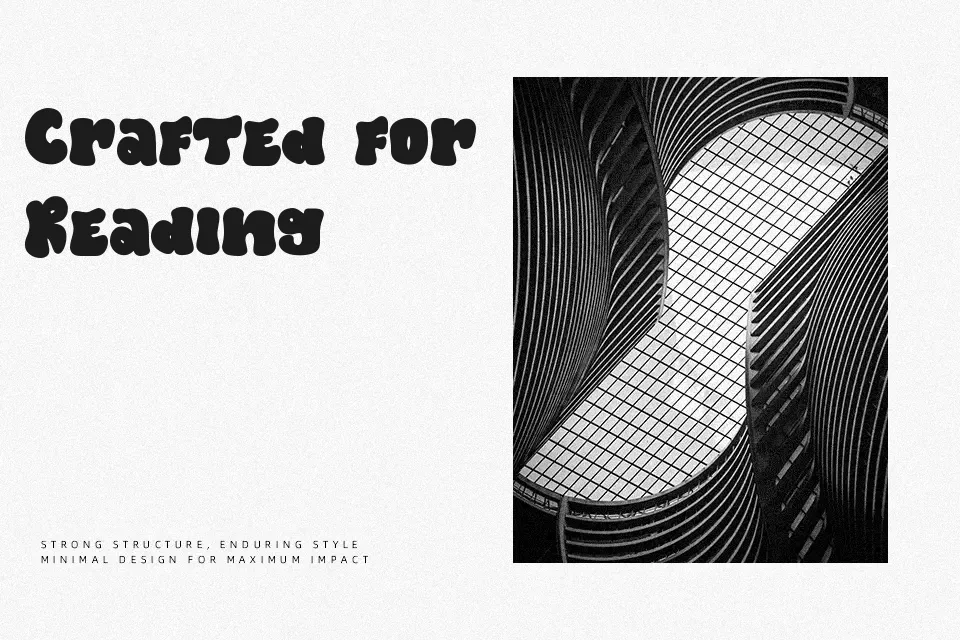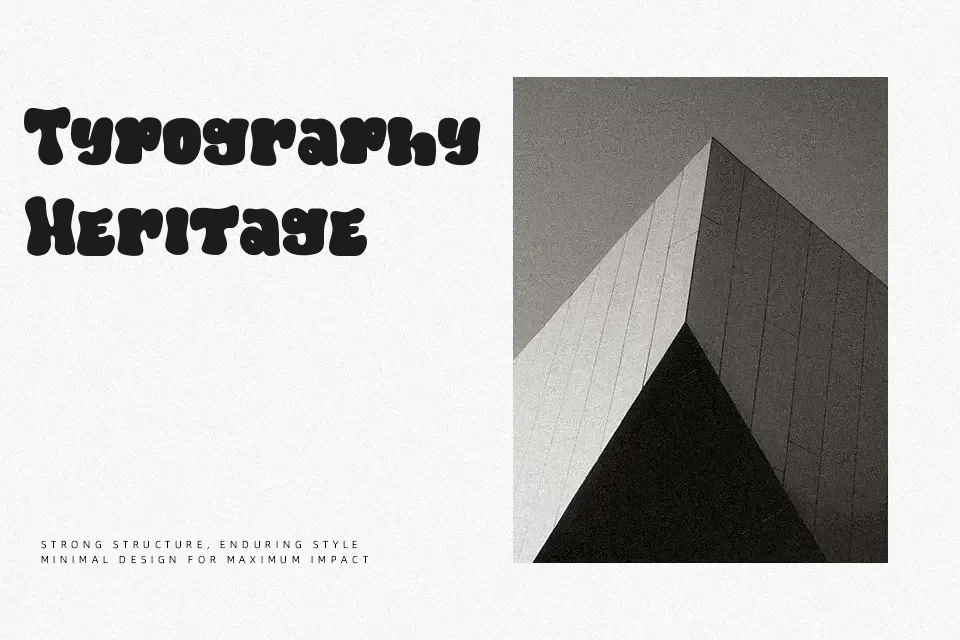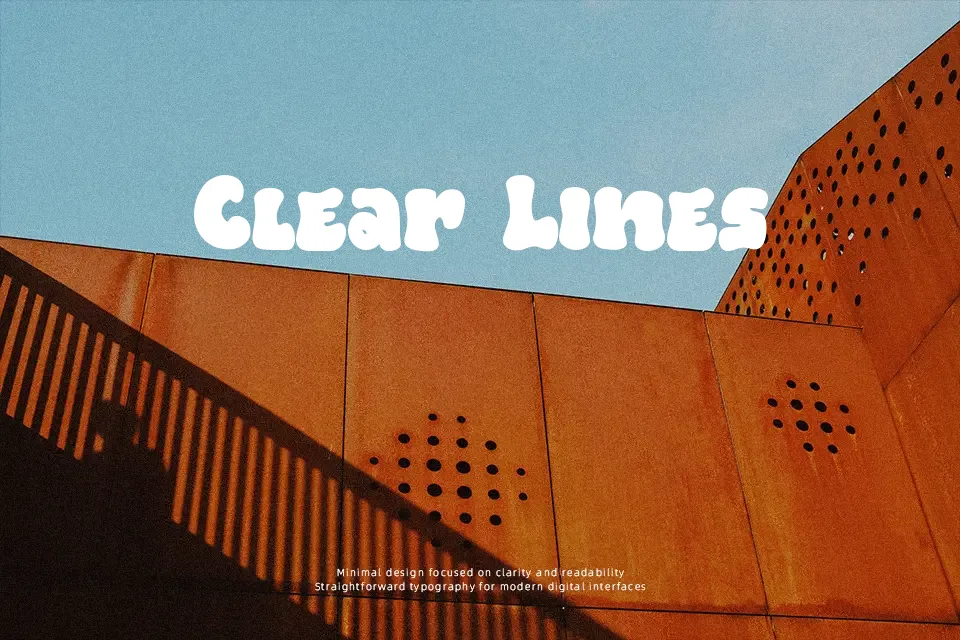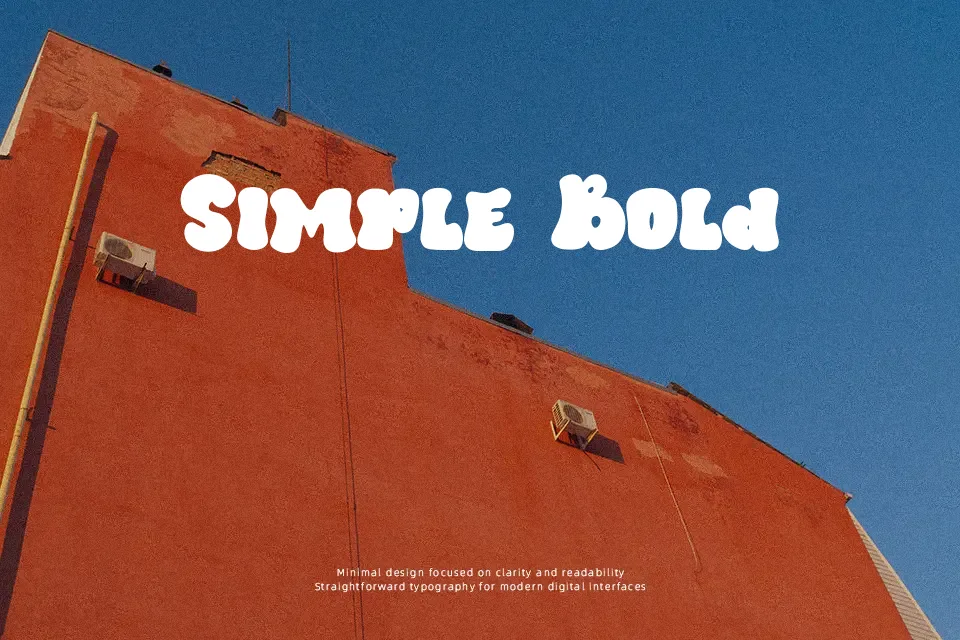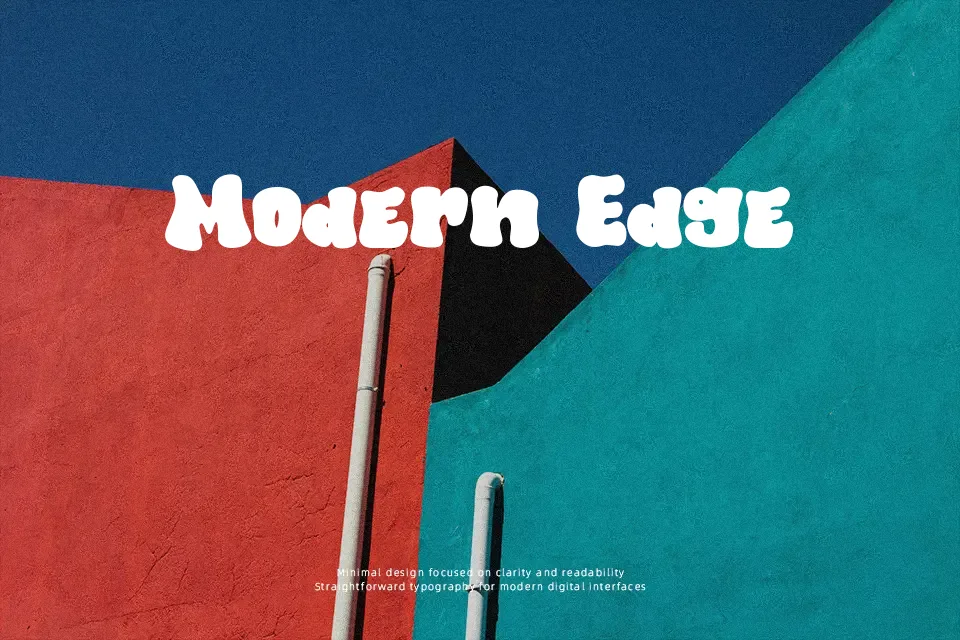
Tums Basic Font
Tums Basic Font features an exaggerated, heavyweight structure built with rounded strokes, generous curves, and low internal negative space. The typeface exhibits tight character spacing alongside uniform x-height proportions, giving each word a cohesive, sticker-like silhouette. Upper and lowercase glyphs share a plump, rhythmic presence that commands attention in title sequences, product labels, and custom logo treatments. In terms of readability, the dense letterforms remain easy to distinguish at large display scales, but the thick strokes cause closed counters to clog when reduced in size. Consequently, the design becomes difficult to read in dense editorial blocks or extended body text.
Best For: retro apparel graphics, music festival posters, packaging headlines, sticker designs
Not Ideal For: continuous body text, corporate annual reports, small interface labels, dense editorial layouts